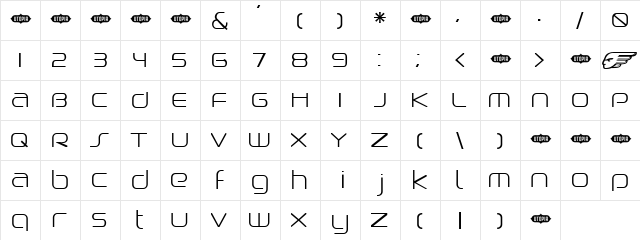
Birdman Light
Design Context for Birdman Typeface
Birdman is a composed and adaptable typeface that performs quietly and consistently across a wide range of design contexts. The delicate stroke weight brings airiness and refinement to layouts.